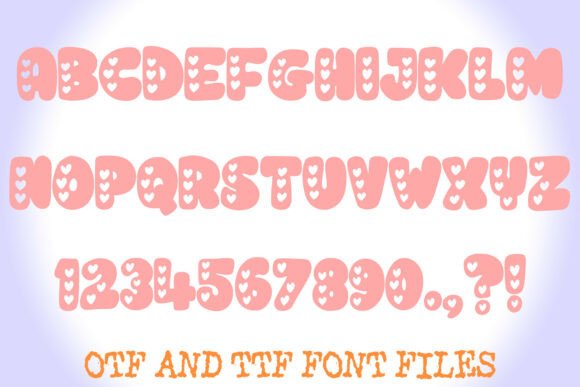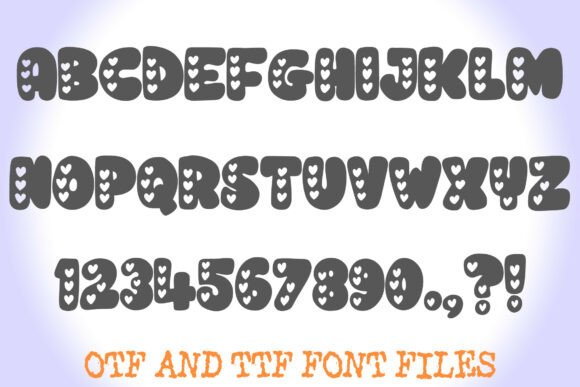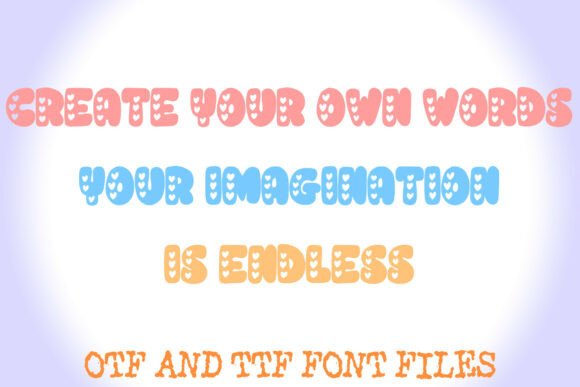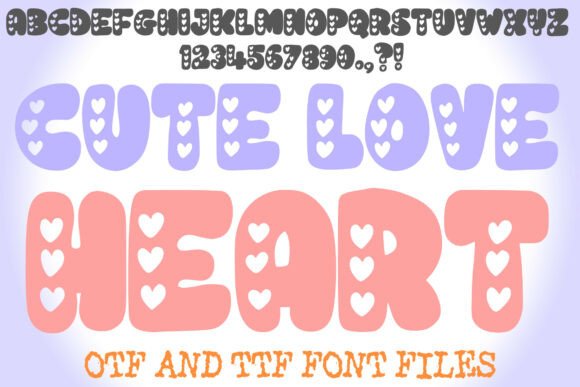
Spread the Love and Charm with Cute Love Heart Font!
Are you looking for a way to add a touch of heartwarming cuteness, romantic flair, and an undeniable sprinkle of joy to your designs? Look no further than the Cute Love Heart Font! This utterly adorable typeface is overflowing with affection, featuring plump, bubbly letterforms delightfully filled with tiny, whimsical hearts. It’s more than just a font; it’s an instant hug in typographic form, perfect for projects that need a dash of sweetness and charm.
A Font that Speaks from the Heart
Each character in Cute Love Heart Font is crafted with a sweet, rounded outline, and its interior beats with a collection of charming little hearts. This unique and endearing visual effect makes it an ideal choice for a variety of design projects, including:
- Valentine’s Day cards: Impress your loved ones with heartfelt messages that come straight from the heart.
- Wedding invitations: Set the tone for a romantic and whimsical celebration with beautiful, heart-filled typography.
- Baby shower decor: Add a touch of sweetness and innocence to your designs with this adorable font.
- Romantic branding: Create a lasting impression with a brand identity that exudes love, care, and attention to detail.
- Anniversary gifts: Make your gifts even more special with personalized messages that speak from the heart.
- Children’s books: Bring your stories to life with a font that’s as playful and imaginative as your young readers.
Whether you’re creating heartfelt messages, designing adorable product packaging, crafting loving social media posts, or adding a cheerful touch to digital art, the Cute Love Heart Font is the perfect choice. Its versatility and charm make it suitable for a wide range of design projects, from:
- Stationery and greeting cards
- Digital and print advertising
- Branding and packaging
What Makes Cute Love Heart Font So Special?
This delightful font has several features that make it truly unique and special:
- Unique heart-filled design: Each character is filled with tiny, whimsical hearts that add a touch of magic to your designs.
- Rounded and bubbly letterforms: The font features plump, rounded letterforms that are as sweet as they are charming.
- High-quality design: The font is carefully crafted with attention to detail, ensuring a high-quality design that’s perfect for professional and personal projects.
Get Ready to Fall in Love!
If you’re looking for a font that will add a touch of heartwarming cuteness, romantic flair, and an undeniable sprinkle of joy to your designs, look no further than the Cute Love Heart Font. With its unique heart-filled design, rounded and bubbly letterforms, and high-quality craftsmanship, this font is sure to become your go-to choice for all your design projects. So why wait? Spread the love and charm with Cute Love Heart Font today!
In conclusion, the Cute Love Heart Font is a must-have for designers and crafters looking to add a touch of sweetness, affection, and whimsical charm to their projects. With its unique design, versatility, and high-quality craftsmanship, this font is perfect for a wide range of design projects, from Valentine’s Day cards to children’s books. So why not give it a try? Download the Cute Love Heart Font today and start spreading the love and charm in your designs!